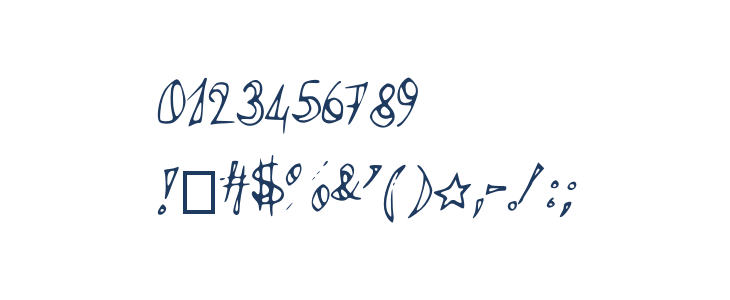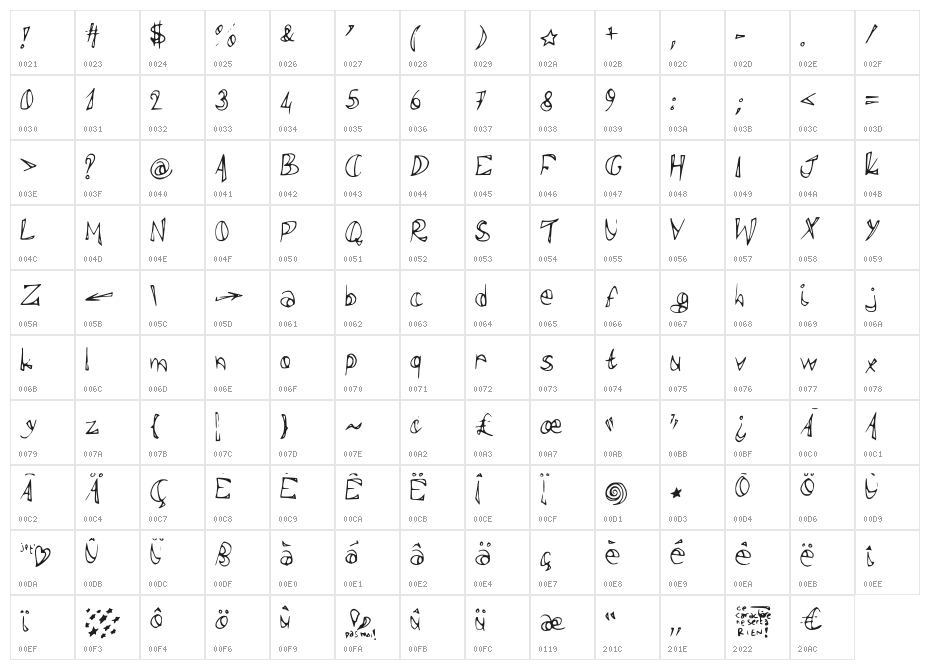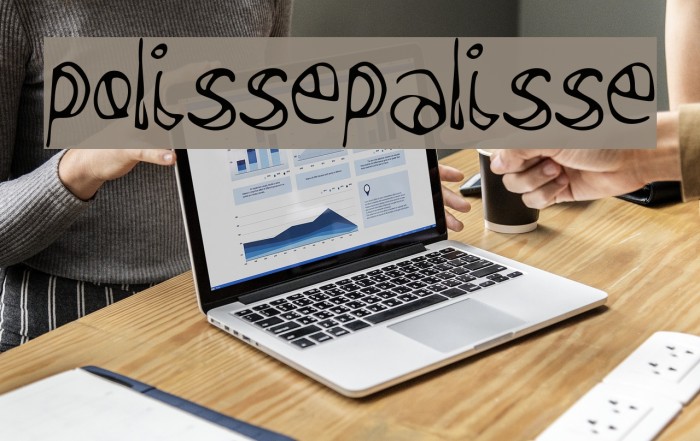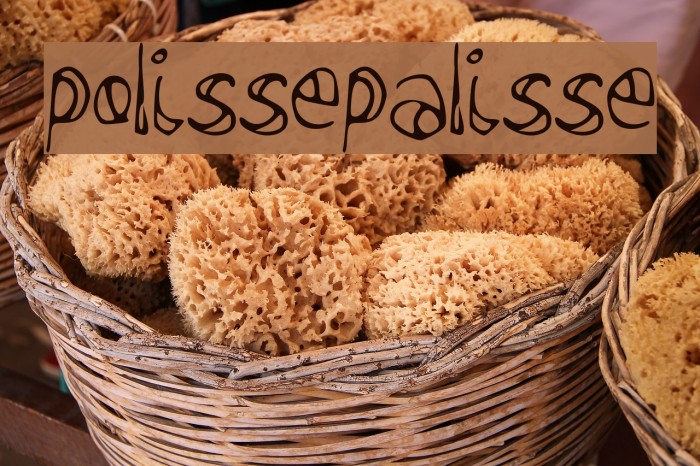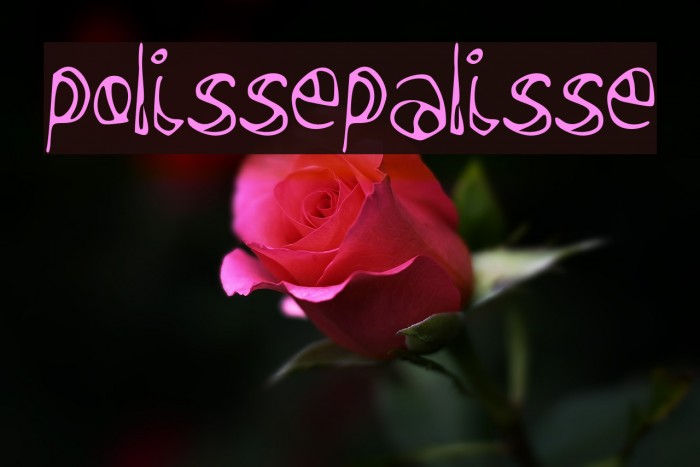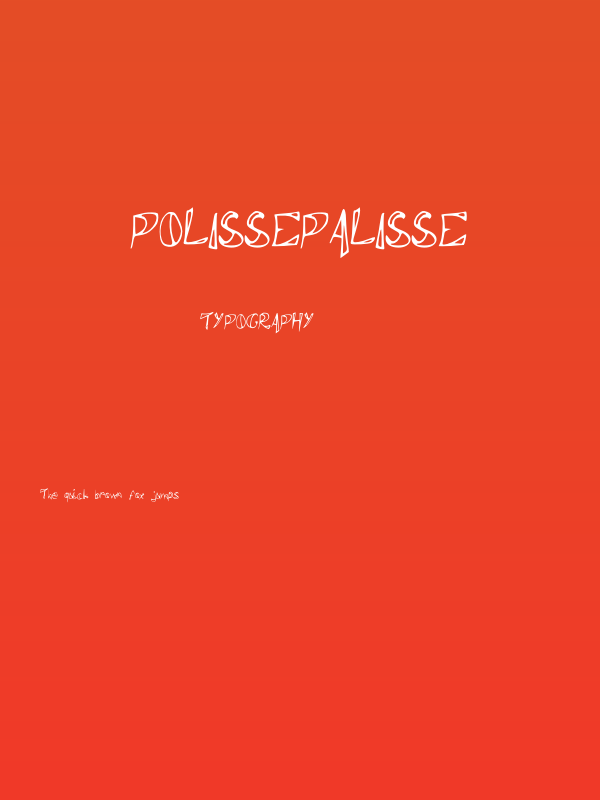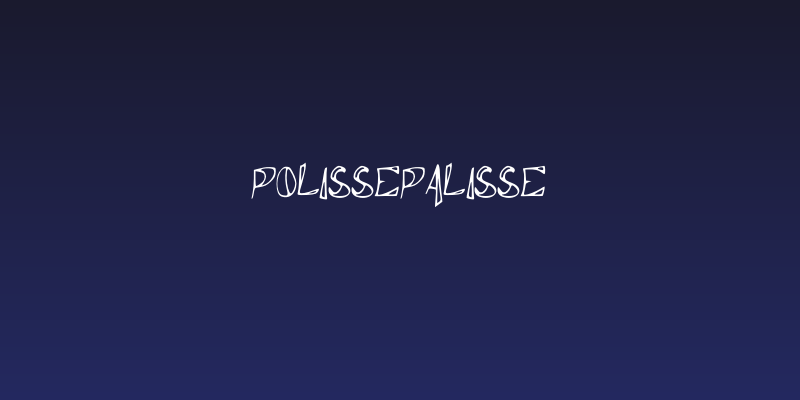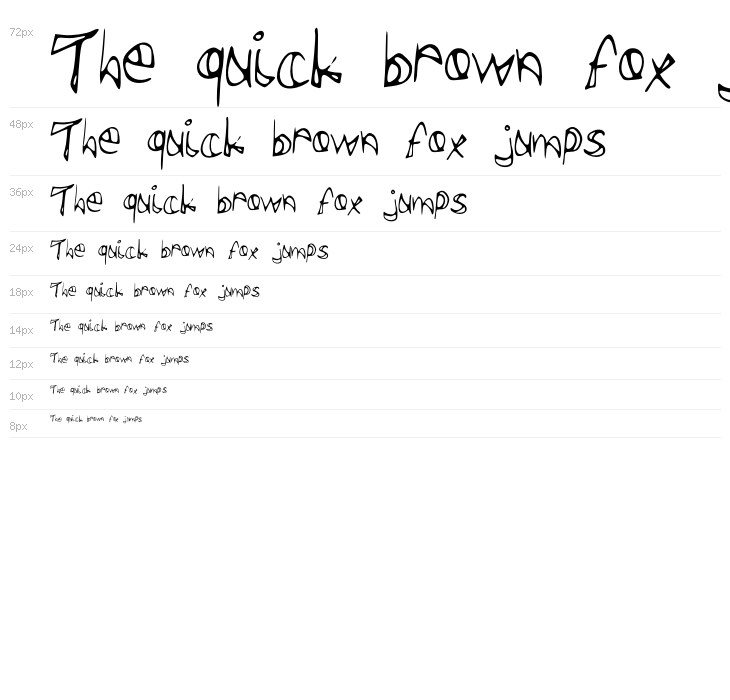
polissepalisse Font
polissepalisse Description
This font features a playful and whimsical design, characterized by its irregular and dynamic strokes. The letters have a hand-drawn appearance, with varying line thickness that adds a sense of movement and energy. The uppercase letters are bold and slightly slanted, while the lowercase letters maintain a consistent style with unique flourishes. Numbers and special characters follow the same lively aesthetic, making the font suitable for creative and informal applications. The overall look is distinctive and artistic, perfect for projects that require a touch of personality and flair.
| Proposed Projects | Ideal for children's books, creative posters, greeting cards, and playful branding. |